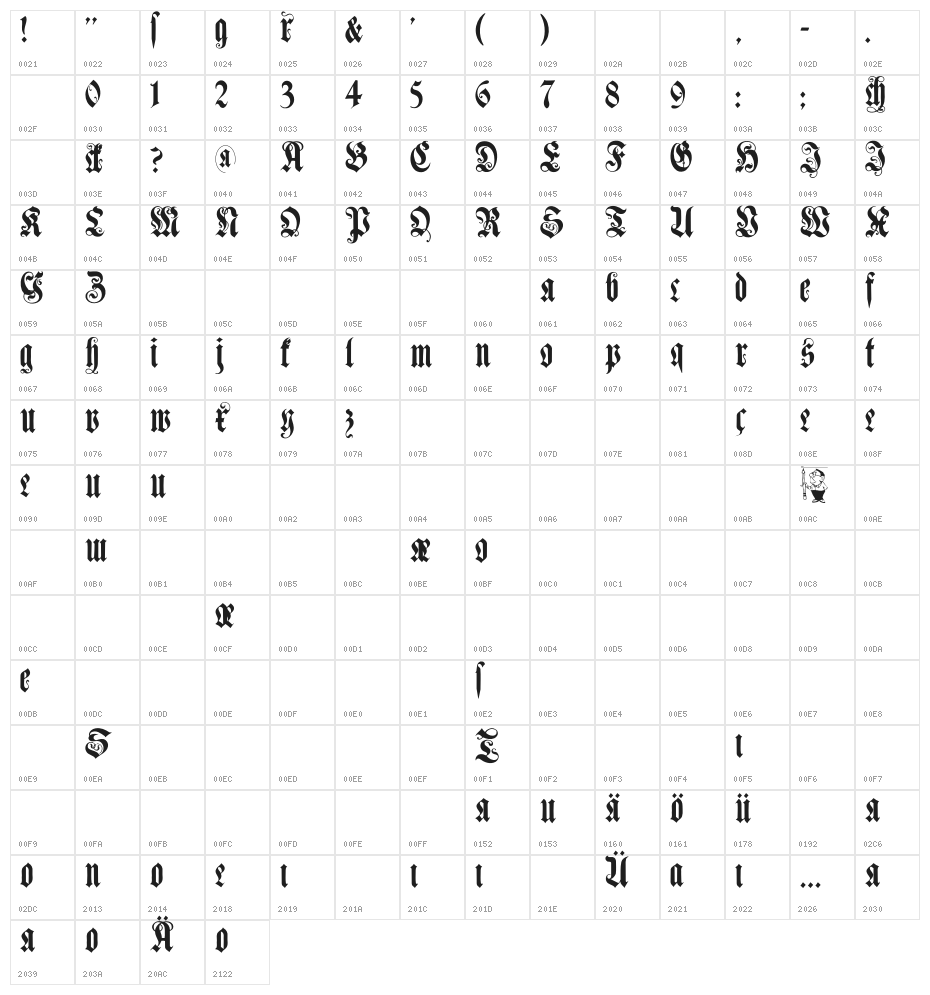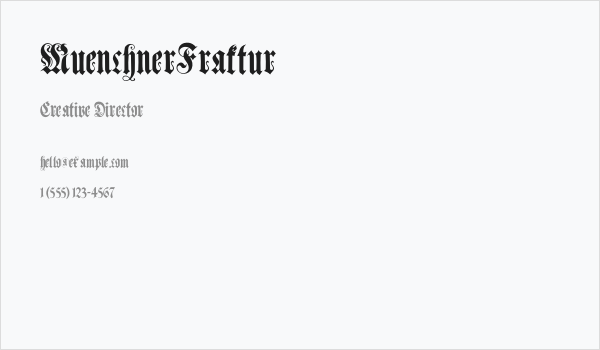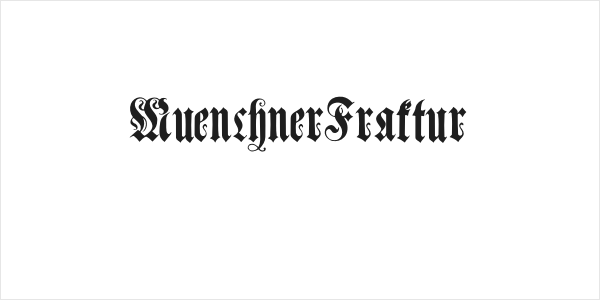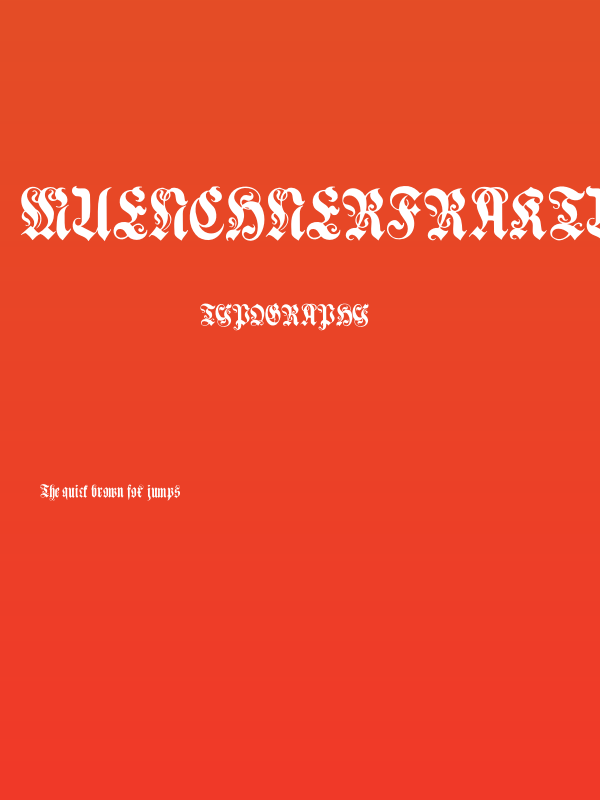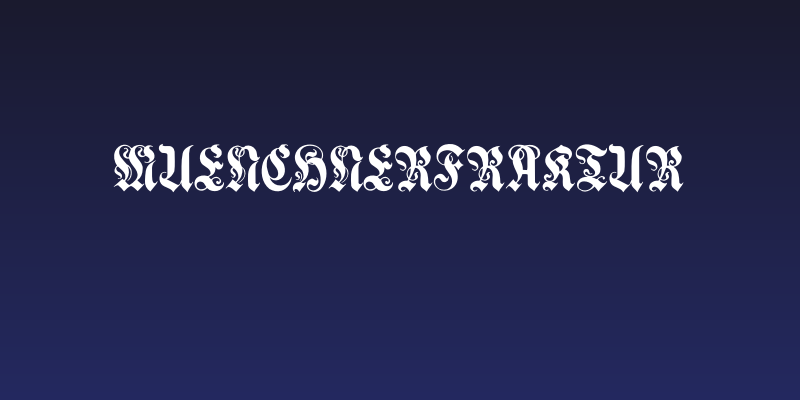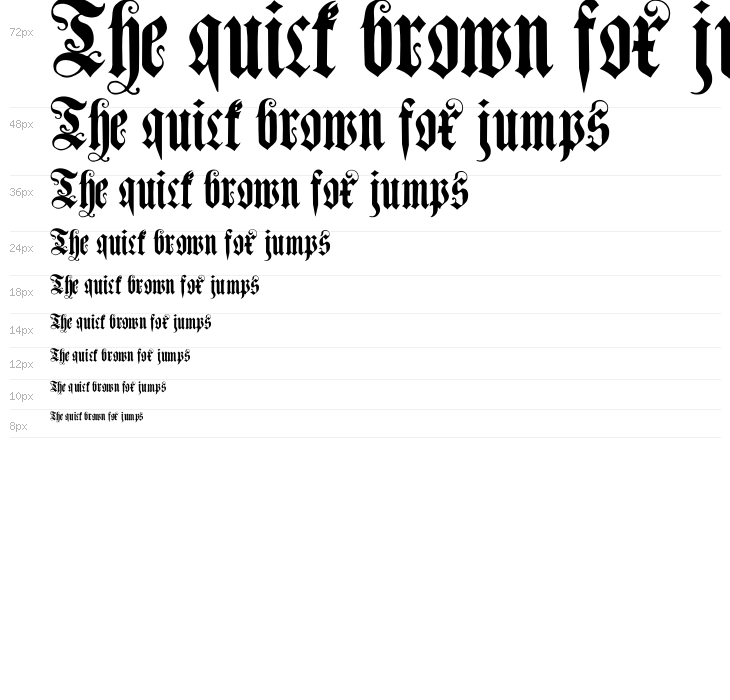
MuenchnerFraktur Font
MuenchnerFraktur Description
This font embodies the traditional and ornate characteristics of Blackletter typography, featuring intricate and decorative elements. The uppercase letters are adorned with elaborate flourishes, giving them a majestic and historical appearance. The lowercase letters maintain a consistent style, with sharp angles and pointed edges that are typical of Gothic scripts. The numerals are equally stylized, with unique curves and embellishments that match the overall aesthetic. Special characters are designed with similar attention to detail, ensuring a cohesive look across all glyphs.
| Proposed Projects | Ideal for historical documents, certificates, wedding invitations, or any project seeking a medieval or traditional European aesthetic. |